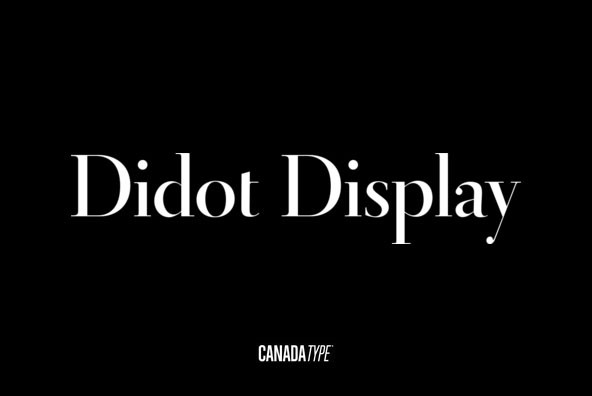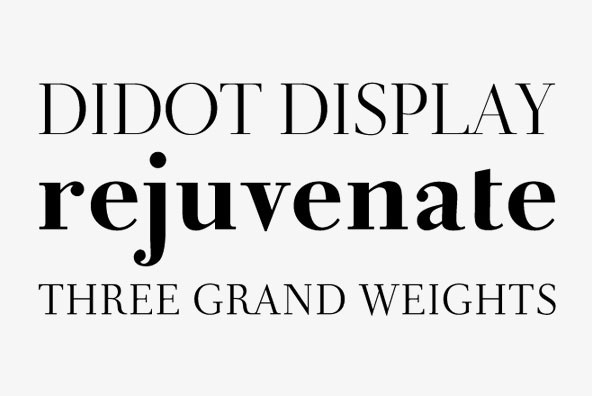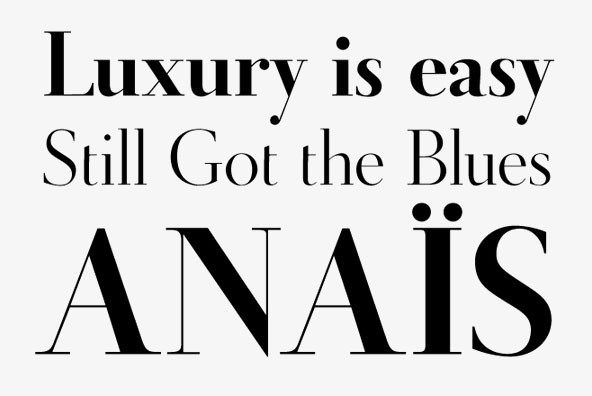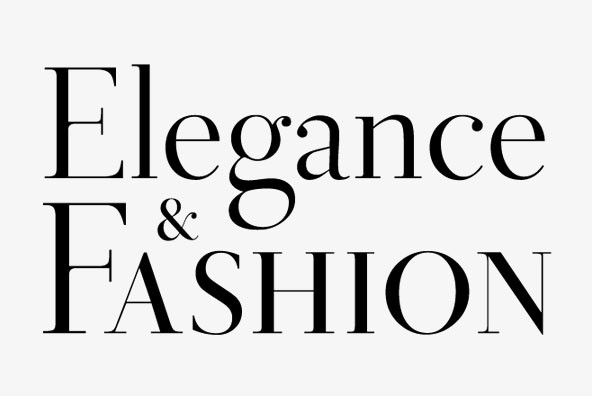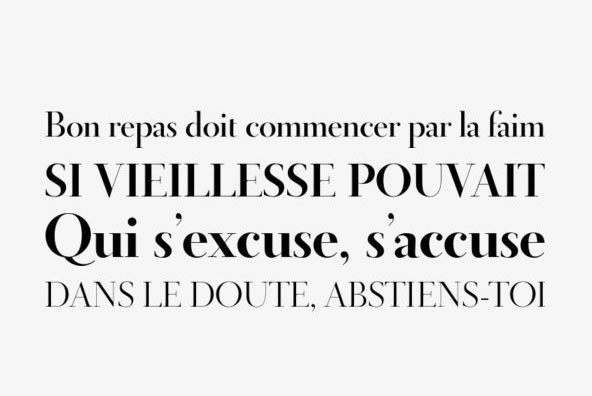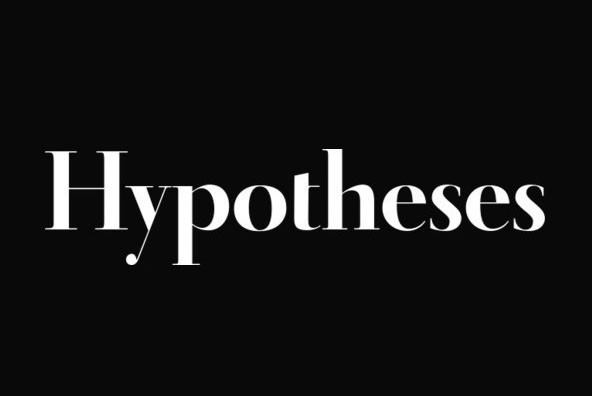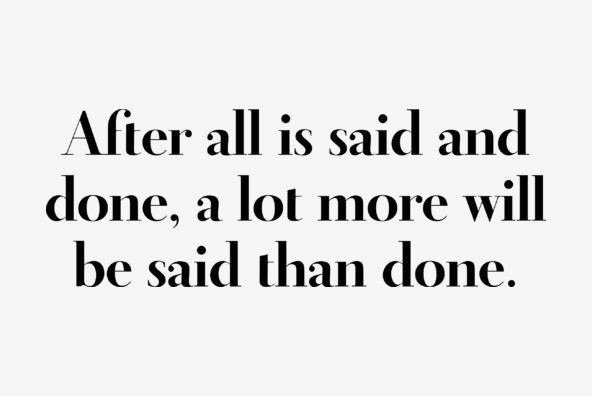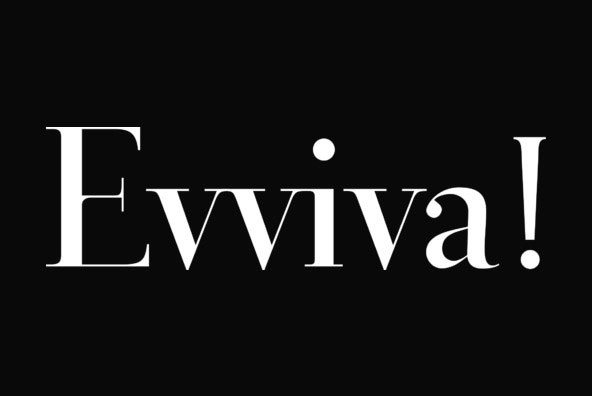
Didot Display
In spite of its name, this font family embodies the ultimate classic modern advertising typeface, rather than concern itself with revivalism or Didone authenticity. Naturally the spirit of the original Didot faces still exists in this family, but over twelve years of work on it have made it more fitting to the luxurious expression of our day and age, rather than nineteenth century Europe.
Upscale and stylish, Didot Display is an essential tool for any designer involved in magazines, books, tasteful music, or overall luxury packaging that requires clean and large classic typography with an unmistakable modern spin.
We recommend the use of Didot Display at 48 points and over. For 12-48 pt. use, check out its sister family, Didot Headline.